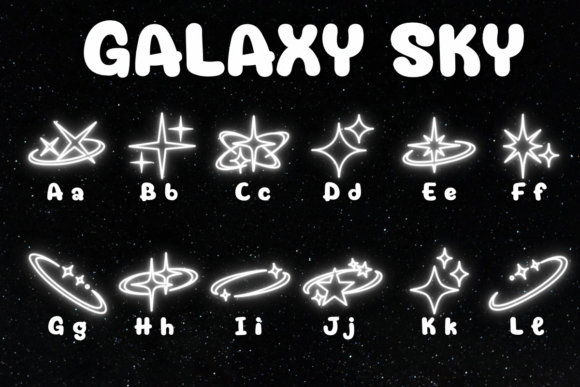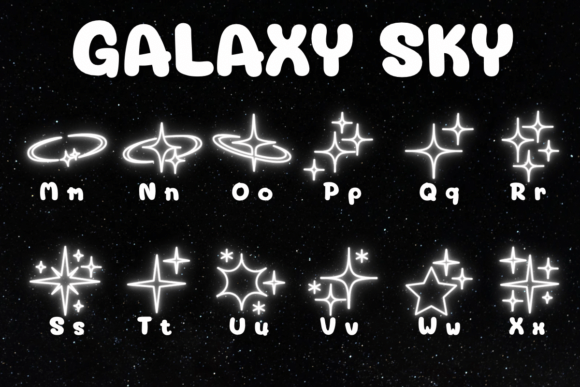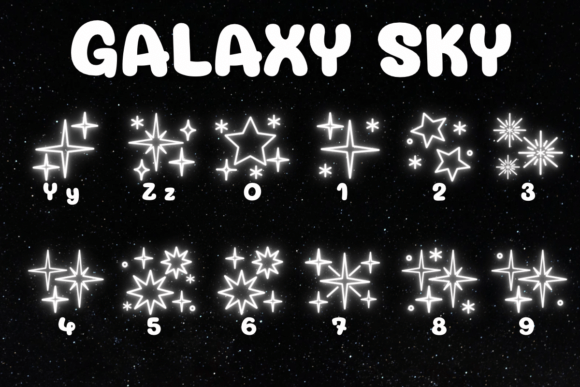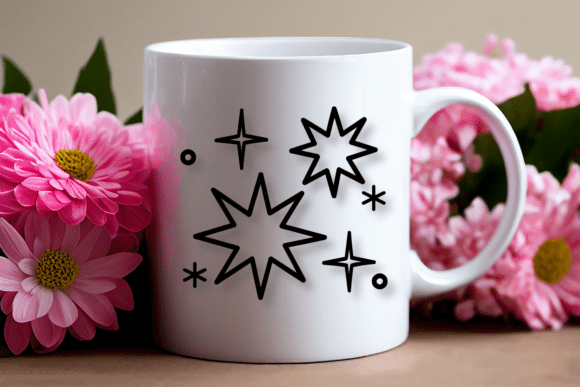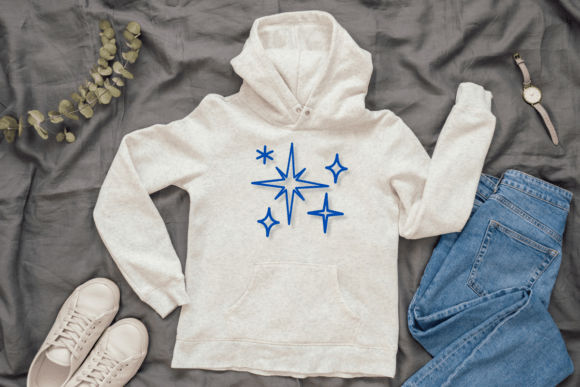
Unlock the Magic of the Cosmos in Your Designs
Have you ever been sitting at your desk, staring at a blank page, and suddenly, a burst of creativity hits you? The stars align, and you see a vision of a beautiful, ethereal design. It’s moments like these that make being a designer so thrilling. But, sometimes, finding the right tools to bring that vision to life can be the challenge.
Enter Galaxy Sky Font, a stunning dingbats font that’s out of this world. This celestial-themed font is perfect for adding a touch of magic to your creative projects, from wedding invitations to DIY crafts and decorations. With Galaxy Sky Font, you’ll be able to transport your audience to a world of wonder and awe.
As a designer, you know how valuable a versatile font can be. Galaxy Sky Font is a game-changer, offering endless possibilities for your next project. Whether you’re working on a logo, a brochure, or a social media campaign, this font is sure to elevate your design to new heights.
Galaxy Sky Font Key Features
- Unique Characteristics: This font features a futuristic, cosmic design with intricate details and subtle gradients, making it ideal for sci-fi and technology-related projects.
Galaxy Sky Font Review
Overall, I’m really impressed with the Galaxy Sky Font. It’s a beautiful, futuristic font that’s perfect for anyone looking to add a touch of celestial magic to their designs. ✨ The font’s unique blend of rounded and angular shapes gives it a quirky, otherworldly feel that’s sure to grab attention.
One of the things that really stands out about Galaxy Sky is its versatility. It works well in a variety of contexts, from sci-fi themed projects to more minimalist designs. ✨ The font’s clean lines and simple shapes make it easy to read, even at smaller font sizes.
Here are some of the things that work well:
- Unique, futuristic design
- Highly versatile, suitable for a wide range of projects
- Easy to read, even at smaller font sizes
- Perfect for adding a touch of celestial magic to designs
However, there are a few limitations to be aware of:
- Some users may find the font’s unique shape to be a bit too quirky or off-putting
- The font may not be suitable for very formal or traditional projects
Overall, I’m really happy with the Galaxy Sky Font. While it may have a few limitations, its unique design and versatility make it a great choice for anyone looking to add a touch of science fiction flair to their designs.
Galaxy Sky Font is best used for titles, headings, and other large text elements.
– Use it for astronomy-related projects, such as infographics, posters, or presentations.
– Experiment with different font sizes and colors to create a visually appealing effect.